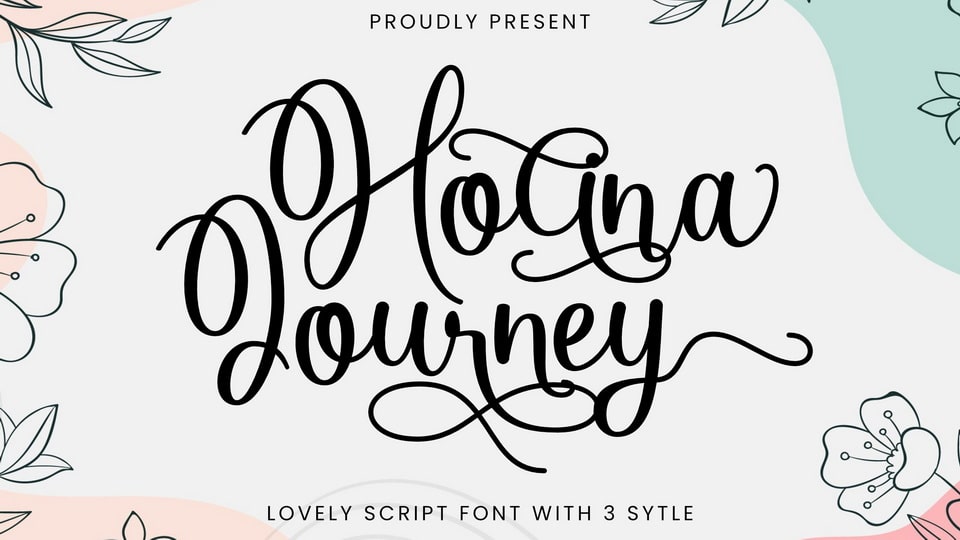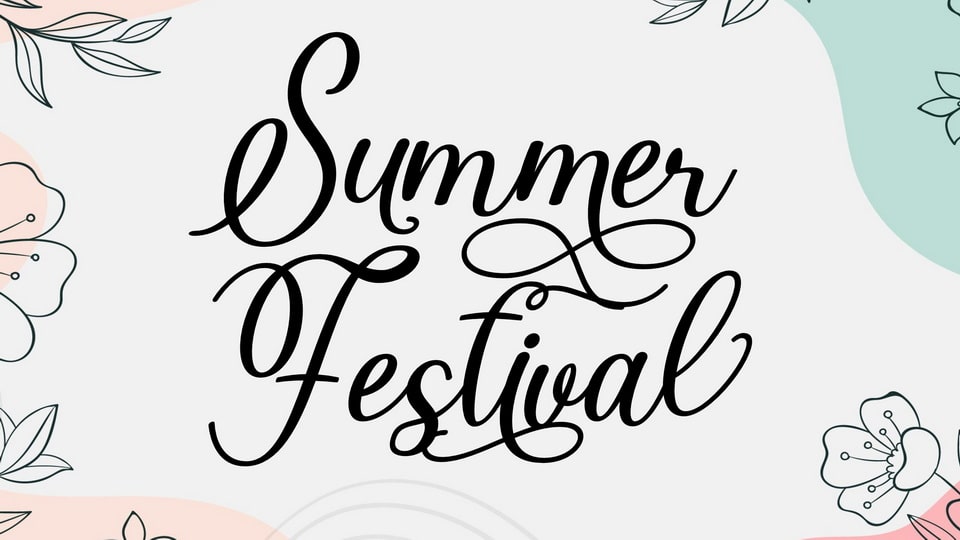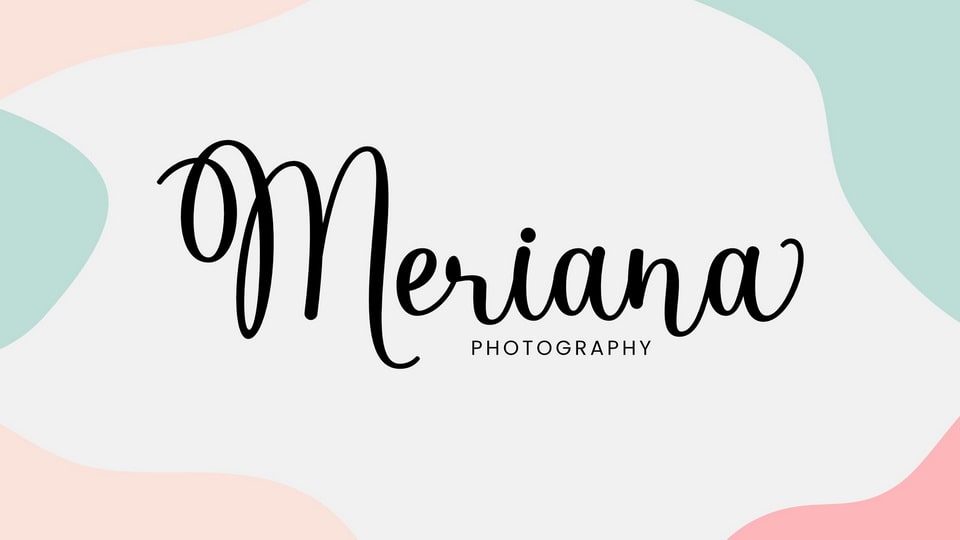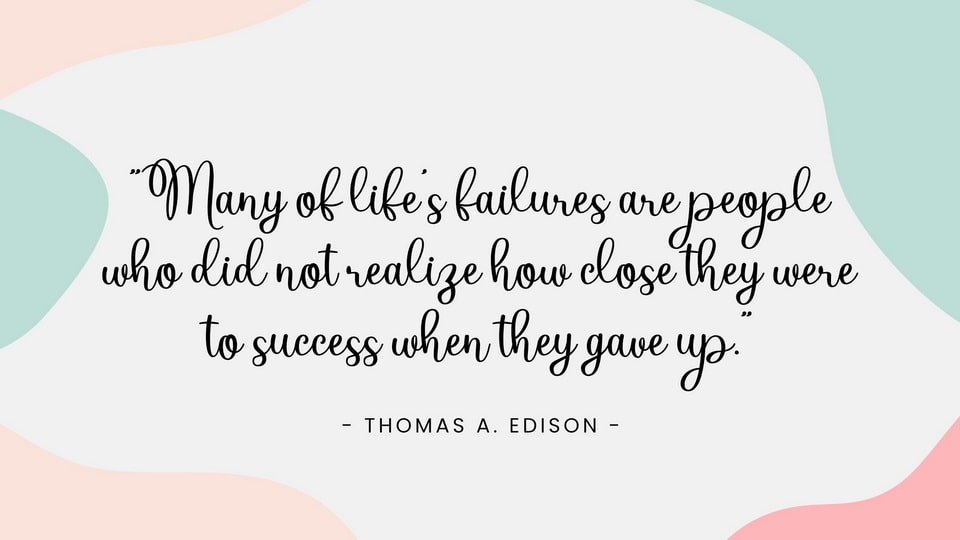
Holina Journey is a beautiful and romantic handwritten font. It looks amazing on thank you cards, quotes, wedding invitations, greeting cards, business cards, logos and any other design that requires a touch of handwriting.